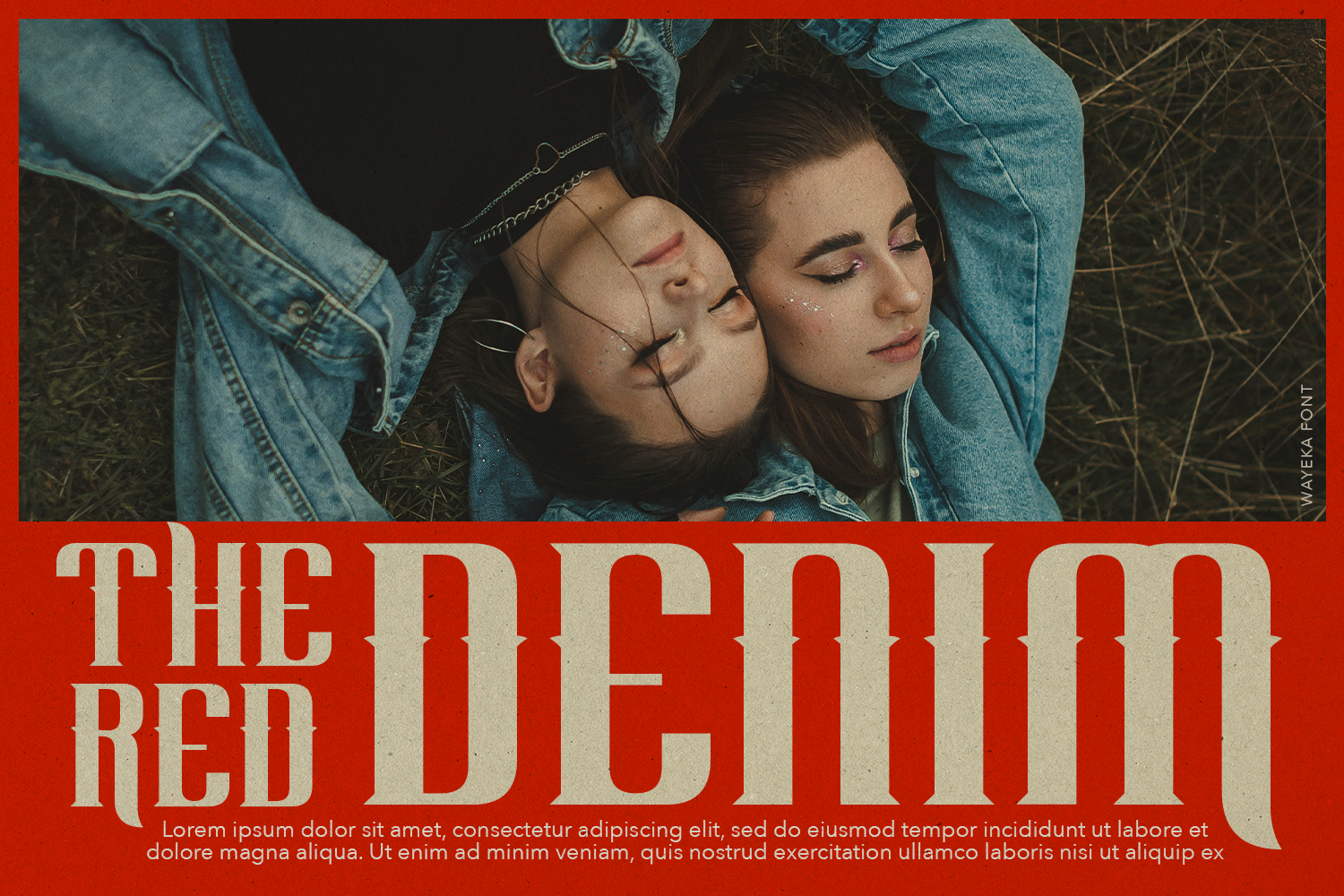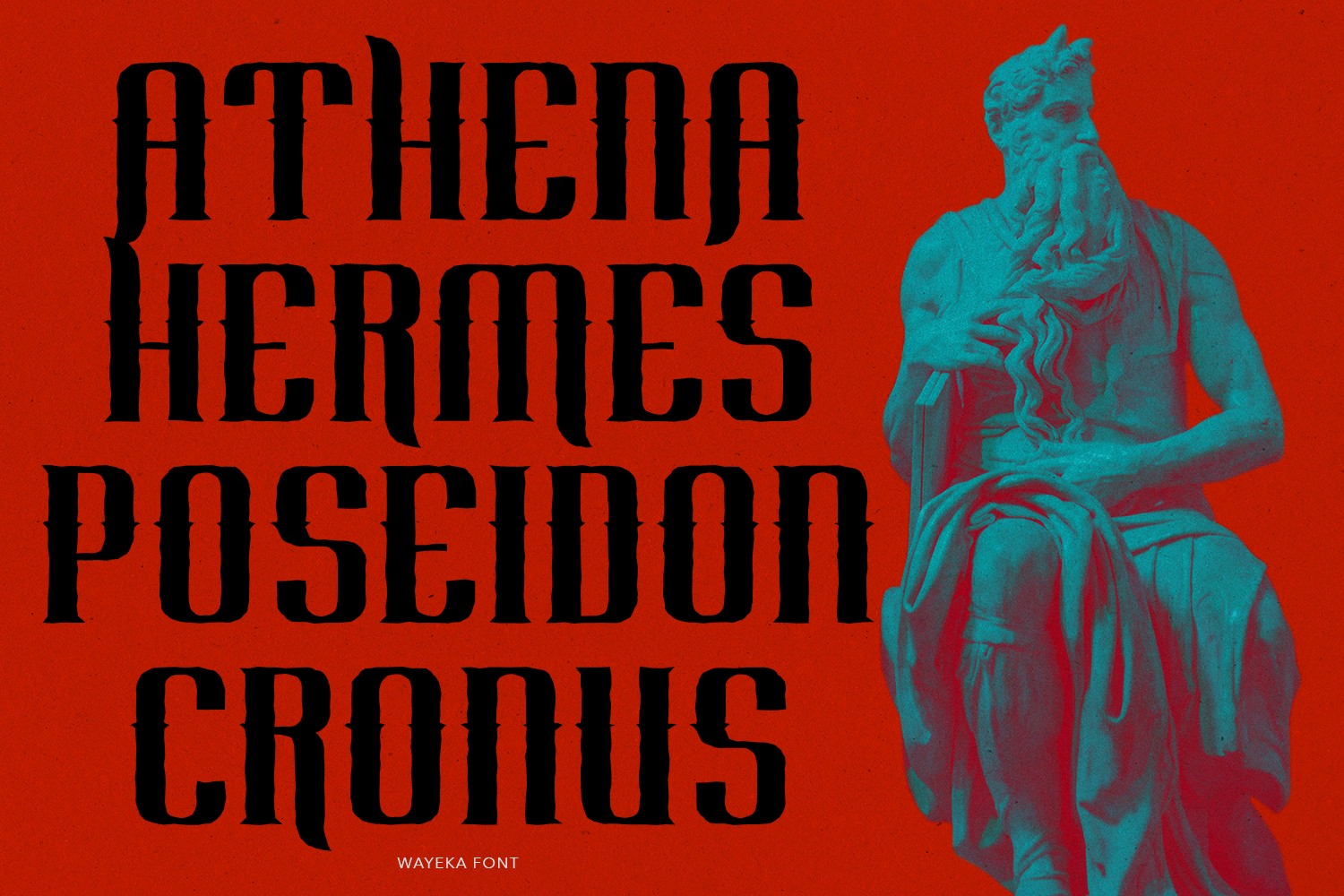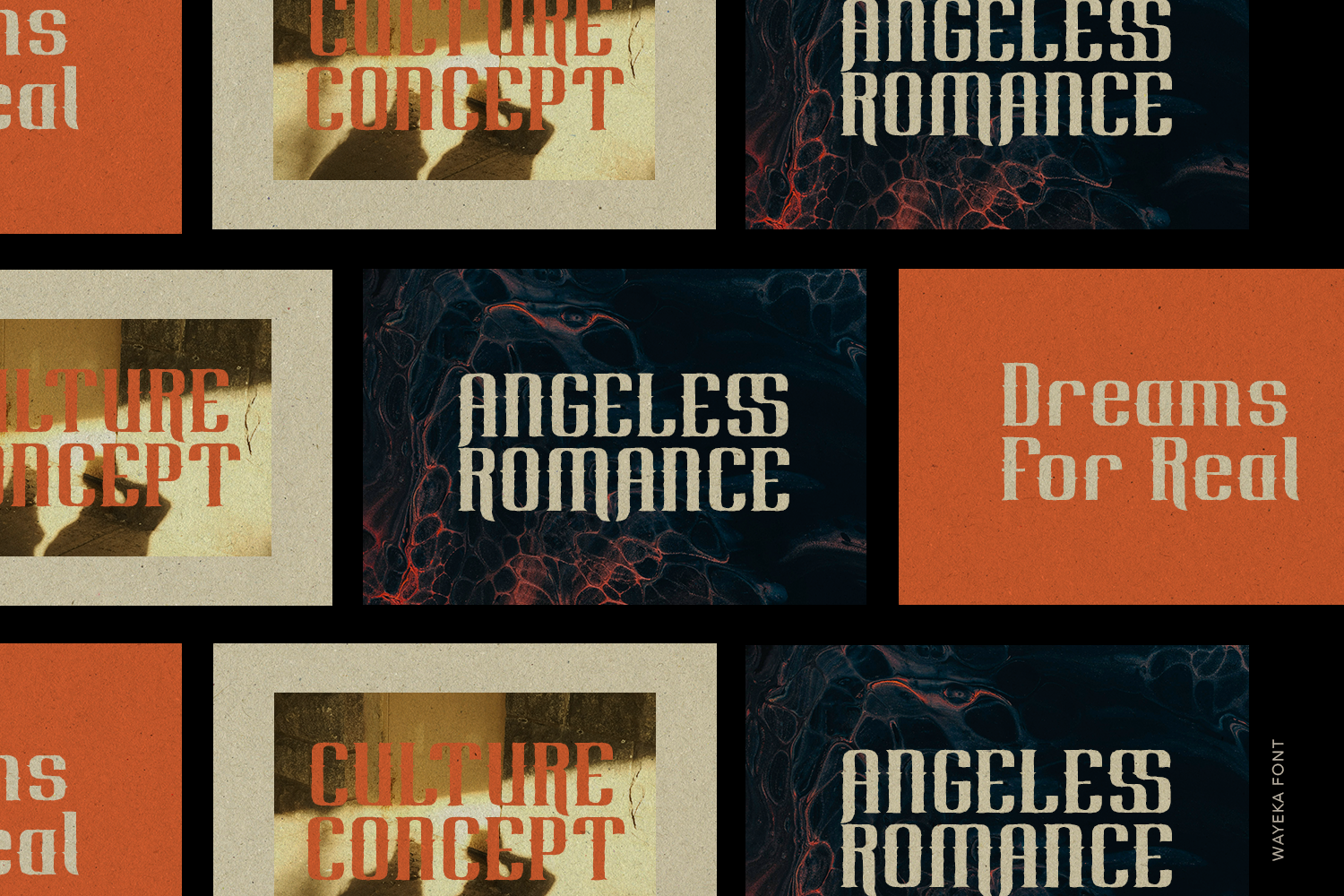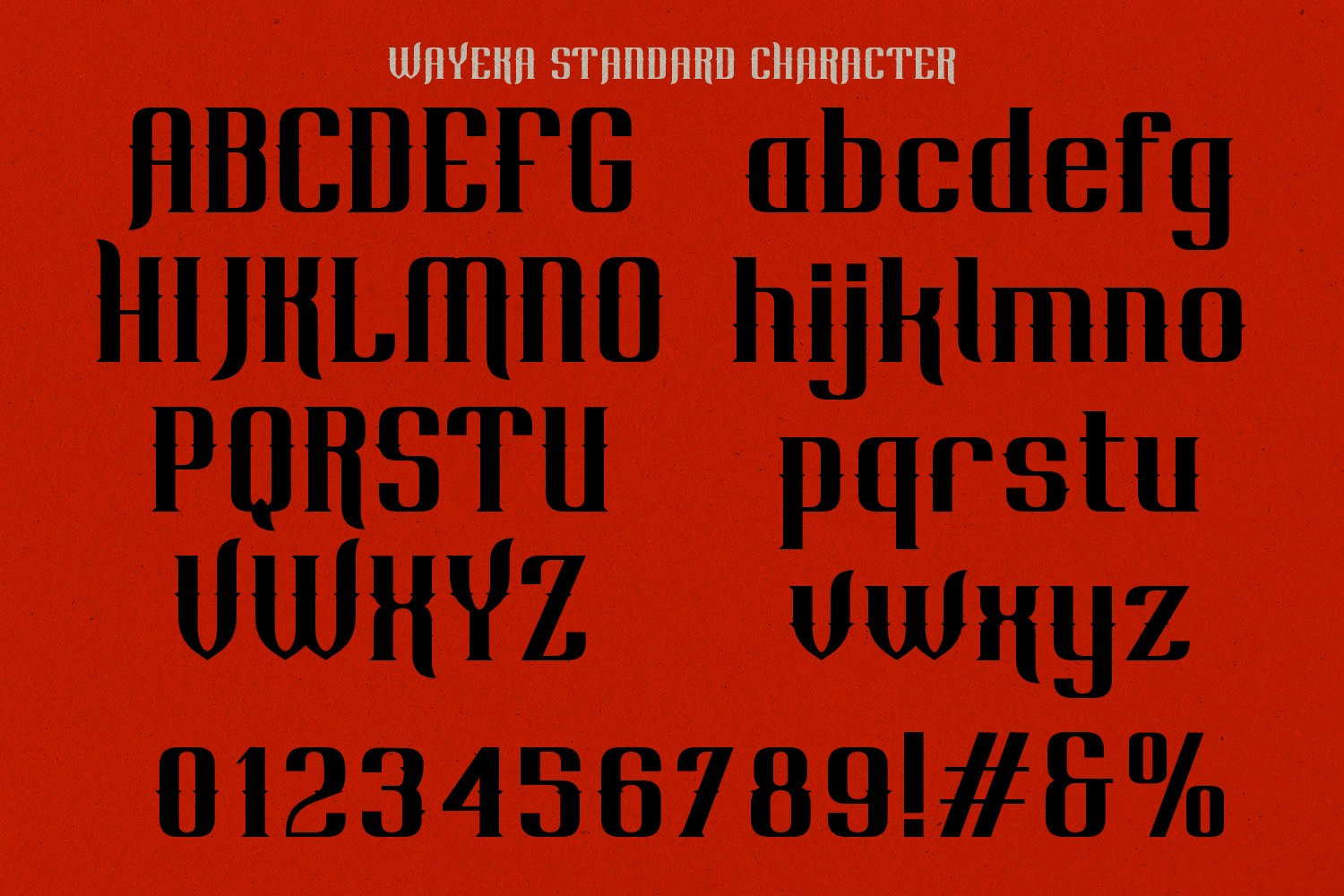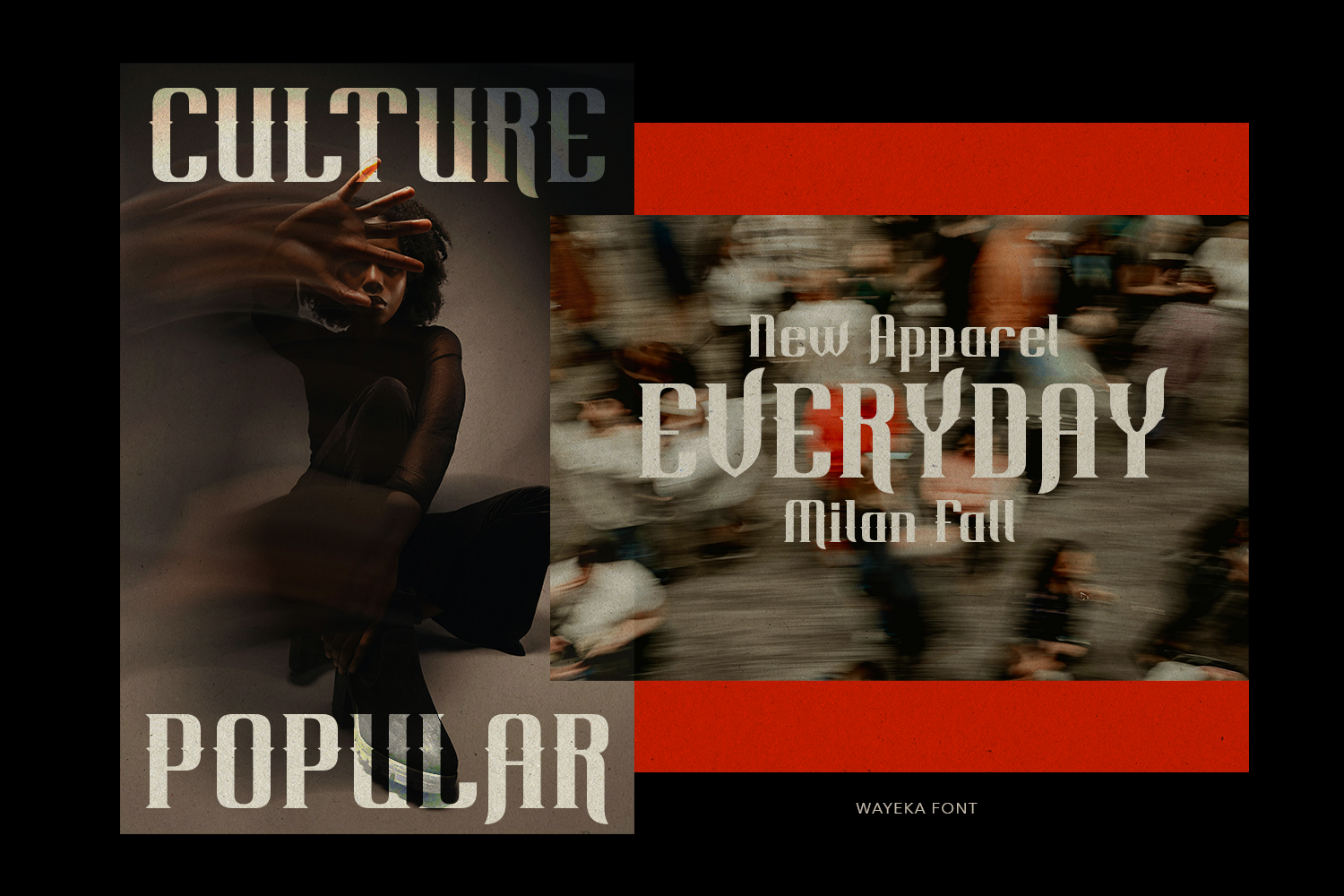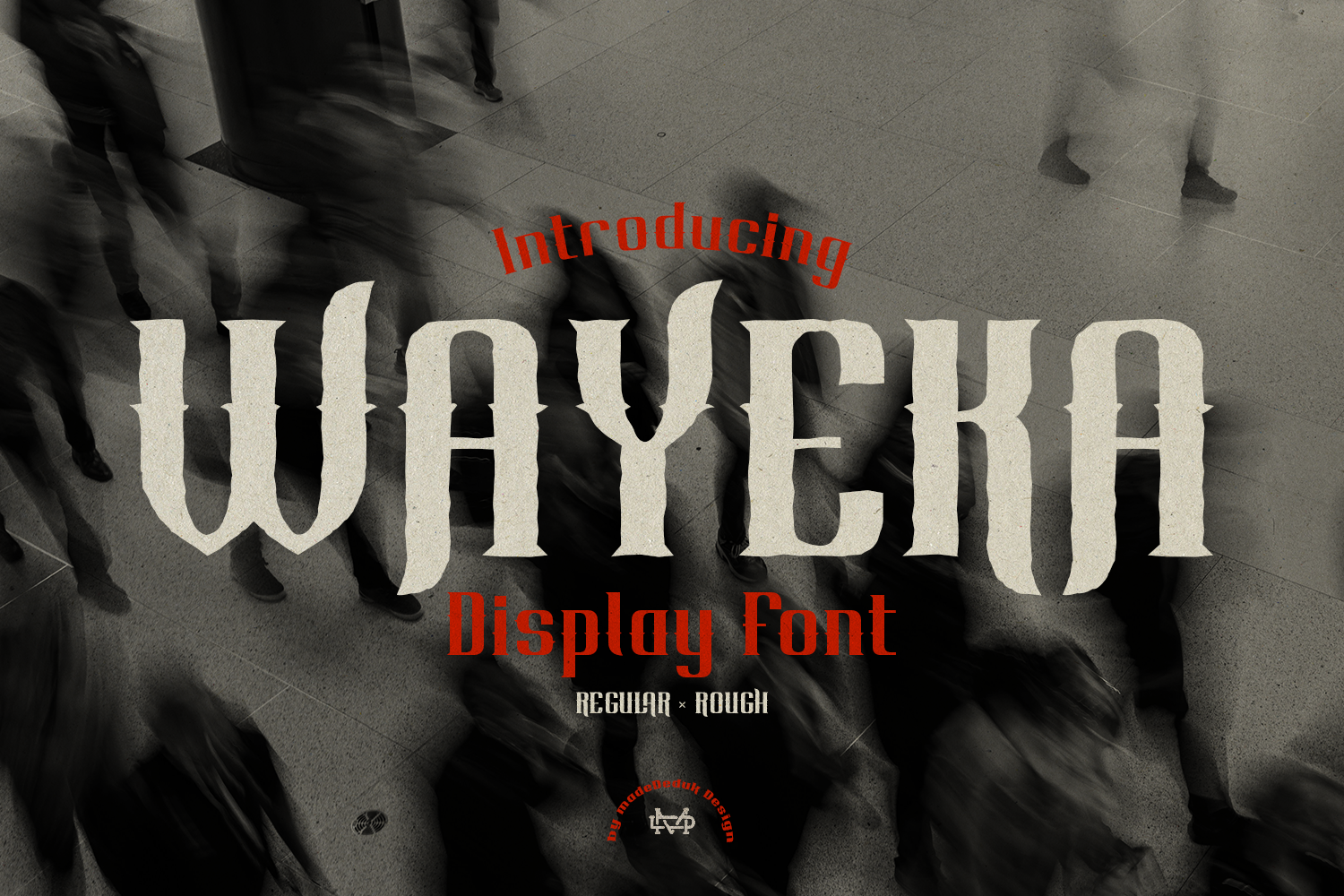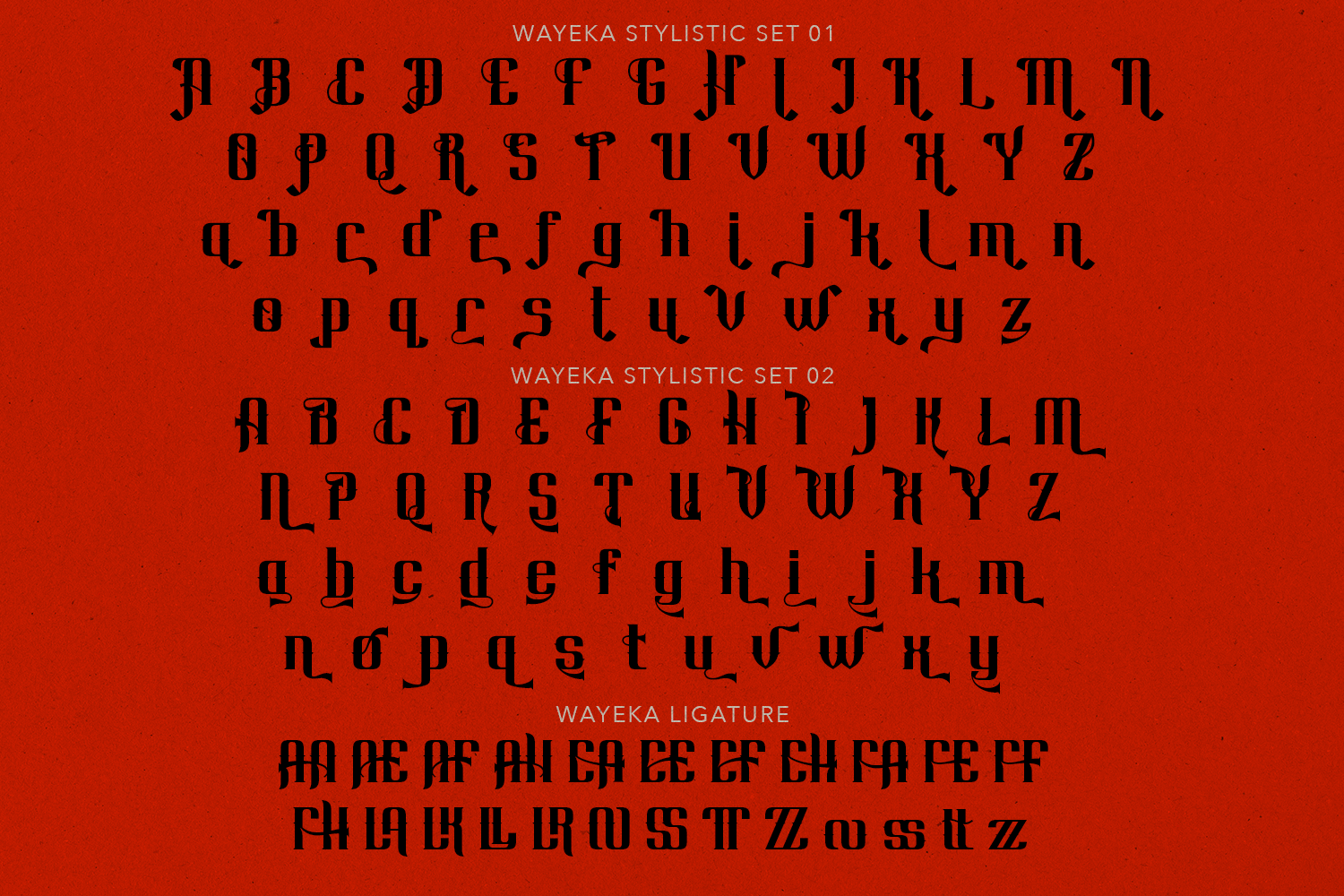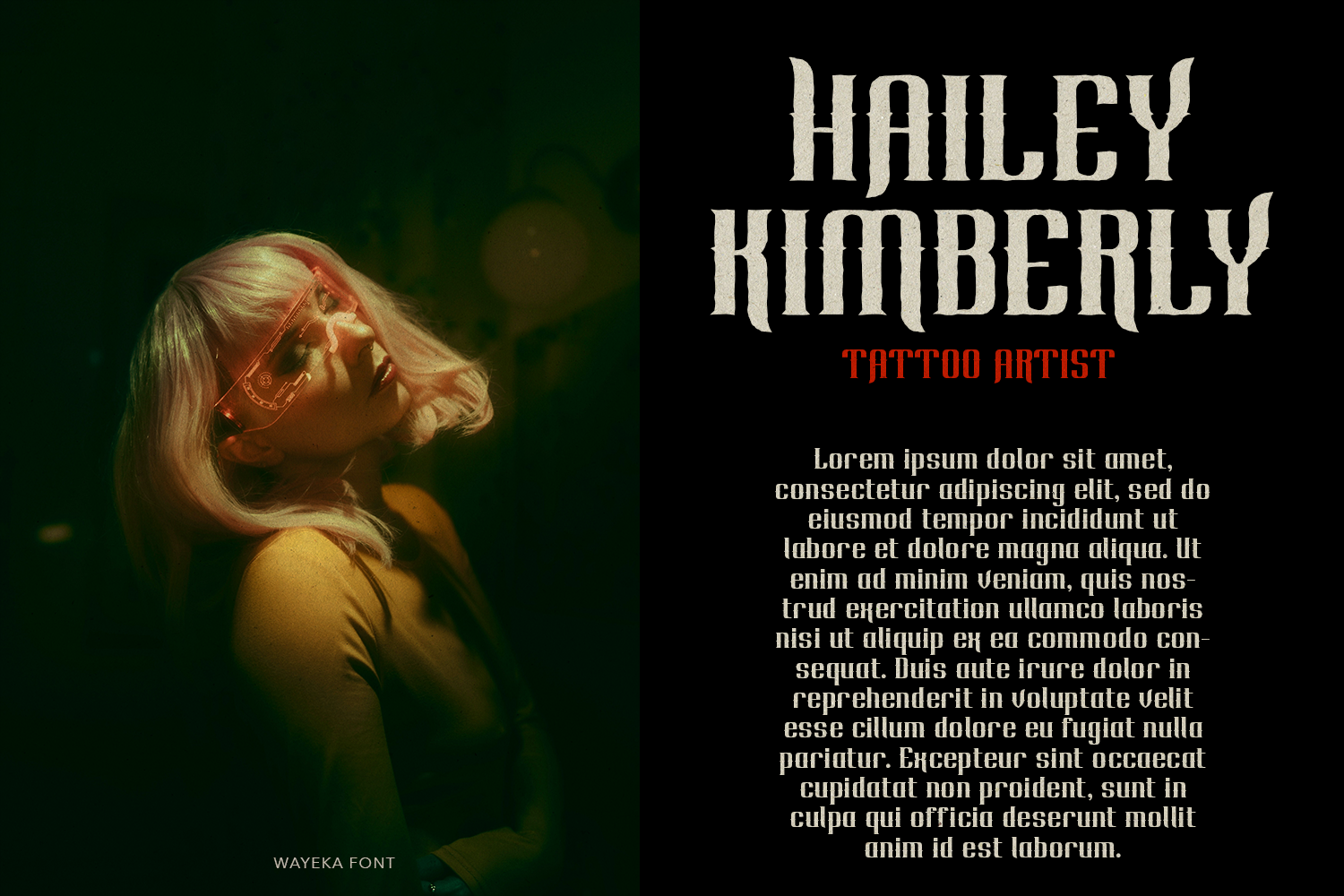
Wayeka Display Font
Really excited to introduce Wayeka display font, made with a stylish impression and supported by alternative with references to various letters that I combine. There's come with 2 style font and suitable to create any branding, product packaging, invitation, quotes, t-shirt, label, poster, logo etc.
Feature
- Number & Symbol
- International Glyphs
- Alternative
- Ligature